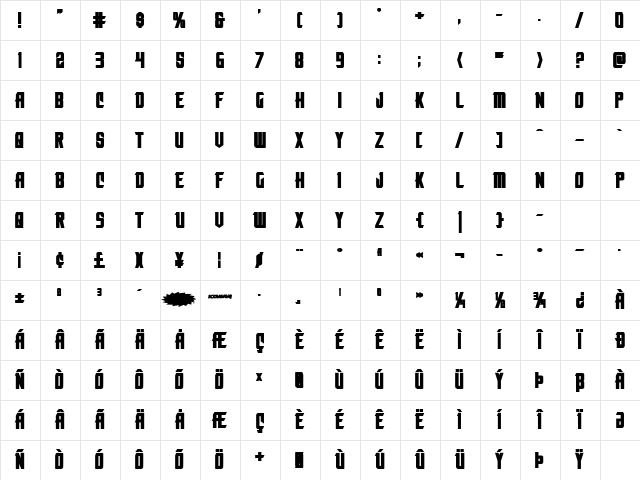
Nemesis Enforcer Bold Expanded Bold Free Font
Nemesis Enforcer Bold Expanded Bold
Complete Nemesis Enforcer Bold Expanded Bold glyph index. Displaying only characters natively supported by Nemesis Enforcer Bold Expanded Bold font.
Design Context for Nemesis Enforcer Bold Expanded
Nemesis Enforcer Bold Expanded brings high-energy athletic personality to the page - its confident, muscular forms are built for impact. Its bold stroke weight gives it real presence on the page.
Pro Tip: Use Nemesis Enforcer Bold Expanded in all-caps headlines where its athletic energy can fully express itself. Pair with a solid, simple sans for supporting text.